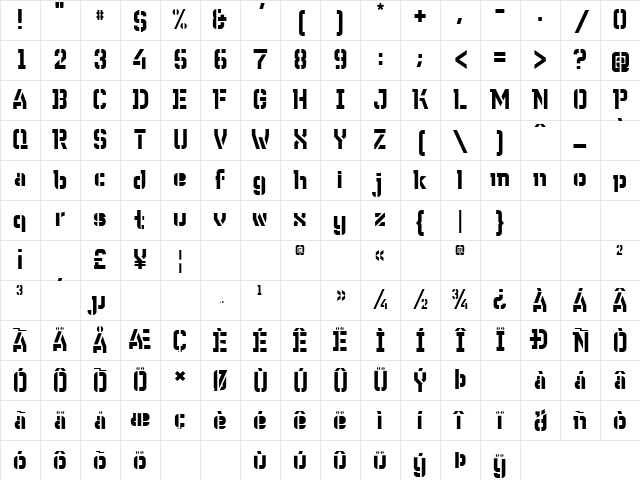
WC Wunderbach Bta DemiBold Free Font
WC Wunderbach Bta DemiBold
Style: DemiBold
Designer: WC Fonts
Complete WC Wunderbach Bta DemiBold glyph index. Displaying only characters natively supported by WC Wunderbach Bta DemiBold font.
Design Context for WC Wunderbach Bta
WC Wunderbach Bta is a composed and adaptable typeface that performs quietly and consistently across a wide range of design contexts. Its bold stroke weight gives it real presence on the page.